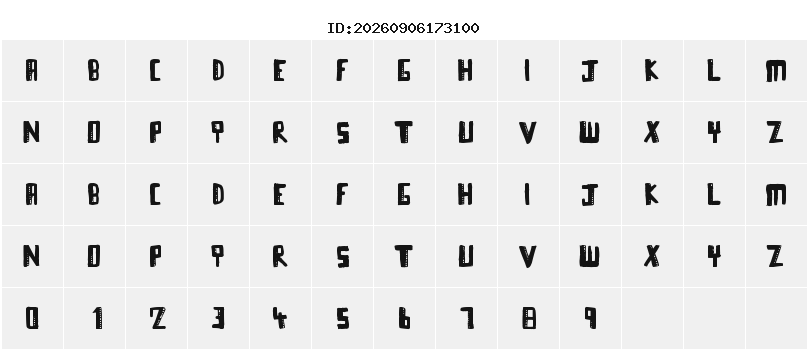
TOWERBLOCKS Preview
• Font Name: TOWERBLOCKS
• Full Font Name: TOWERBLOCKS
• Version: Version 1.00 July 23, 2013, initial release
• Designer: Alan Parley
About TOWERBLOCKS.ttf
TOWERBLOCKS.ttf is a modern, elegant sans-serif font designed for ultimate readability and visual harmony. Perfect for branding, headlines, web design, and print materials.